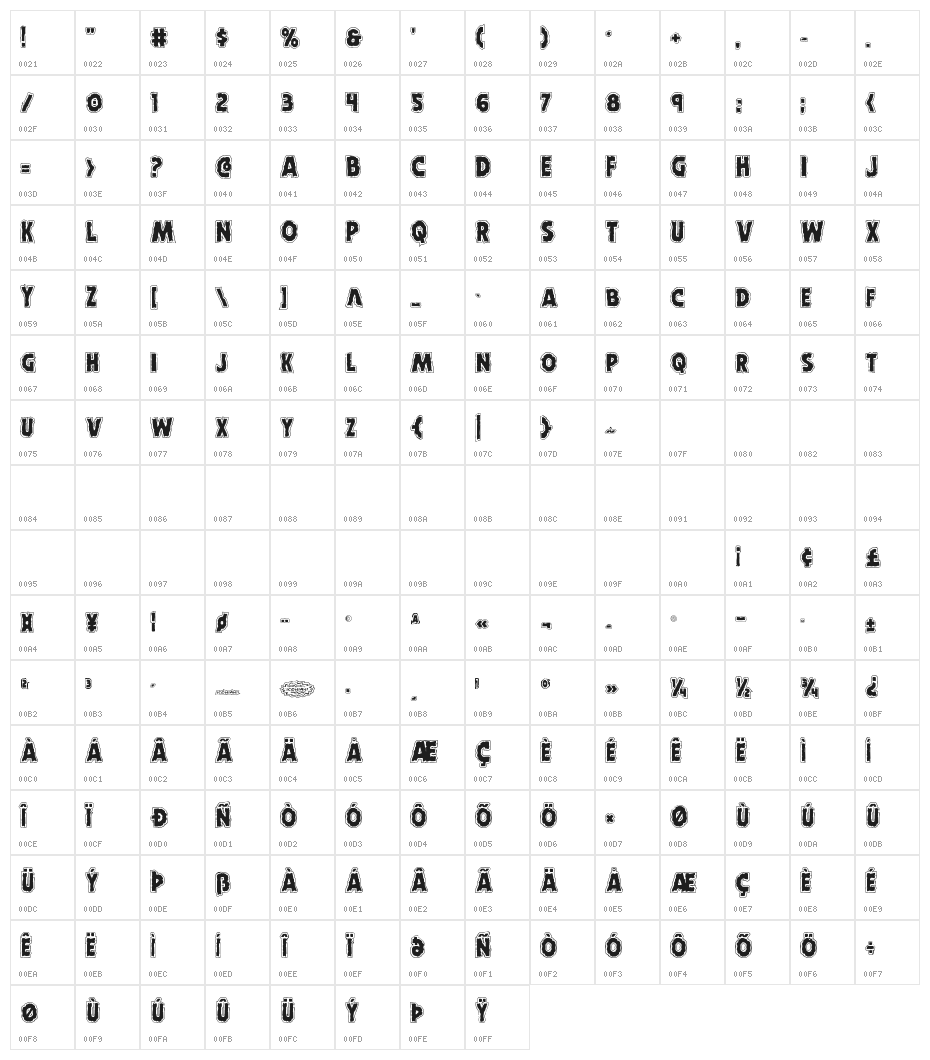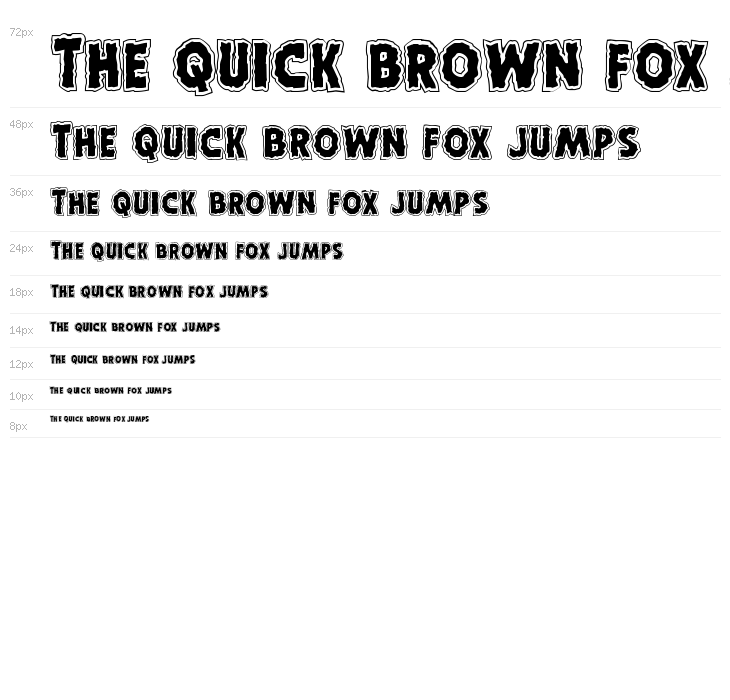
Horroween Academy Font
| Projetos propostos | Ideal for Halloween event posters, themed party invitations, horror movie titles, and spooky merchandise designs. |